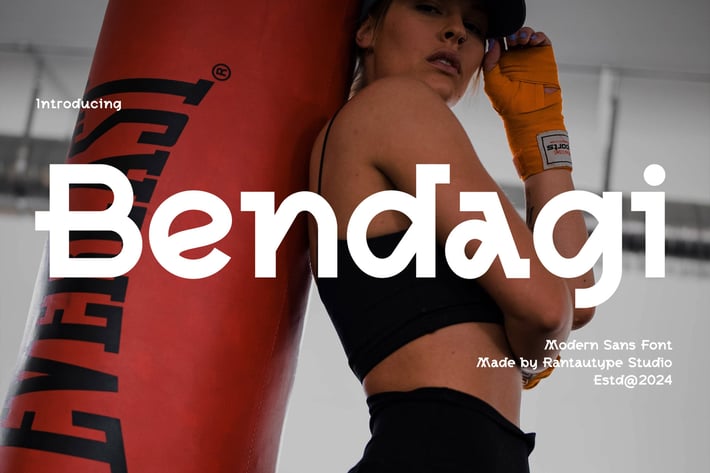
Bendagi Modern Sans Font
Bendagi is industrial sans serif font insprire by modern geometry shape. Bendagi bring strong interpretation and gently blending shape make your design project more powerful. Bendagi come with a unique style combining geometric shapes and made with pride.
Bendagi is a perfectly choice for any creative endeavor, chic, lifestyle design such as logotype, advertisements, watermark on photography, stationery, branding project, display and magazine, invitation, corporate brand, product design, label, business project and many other project with modern or industrial touch.